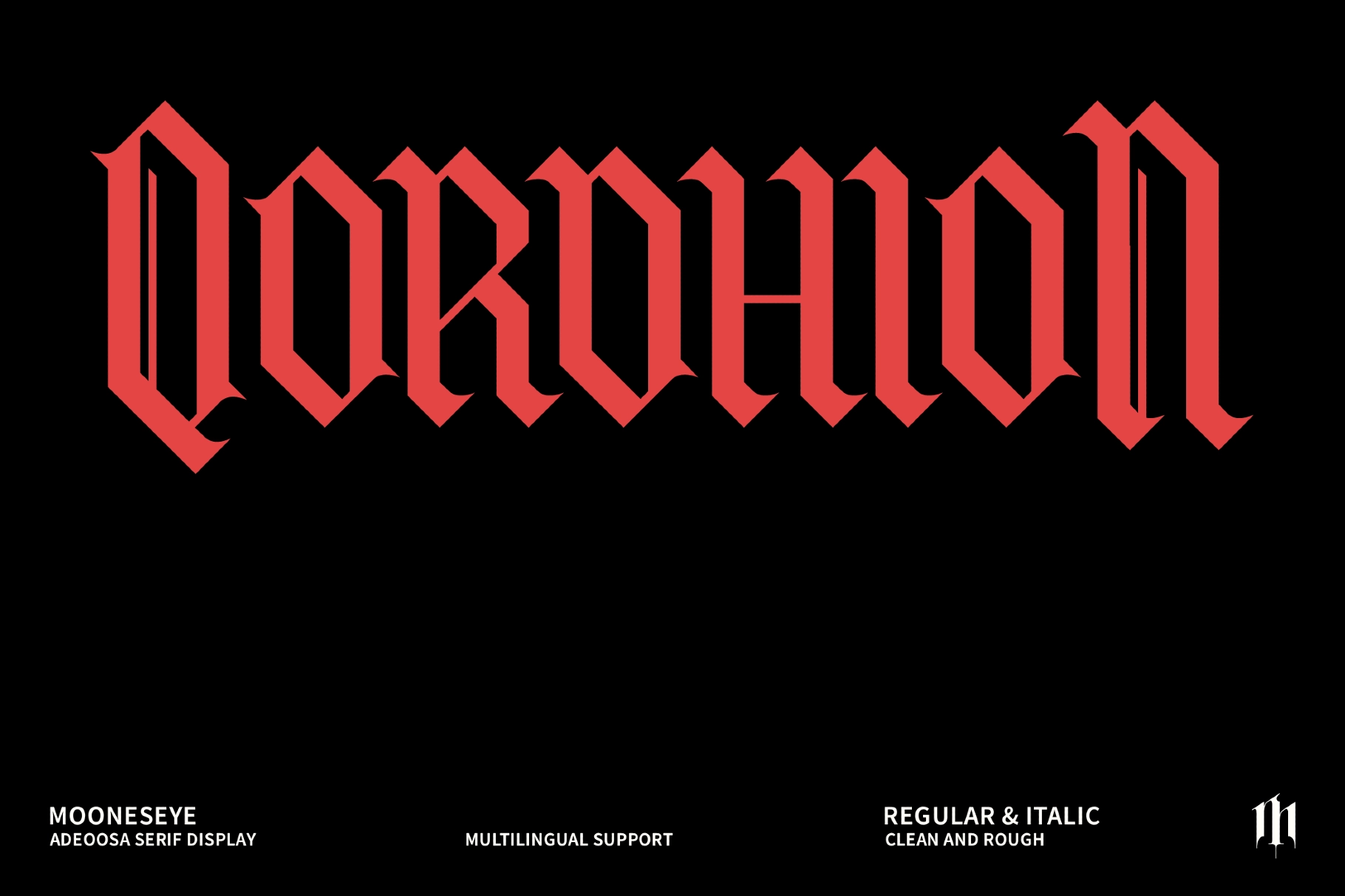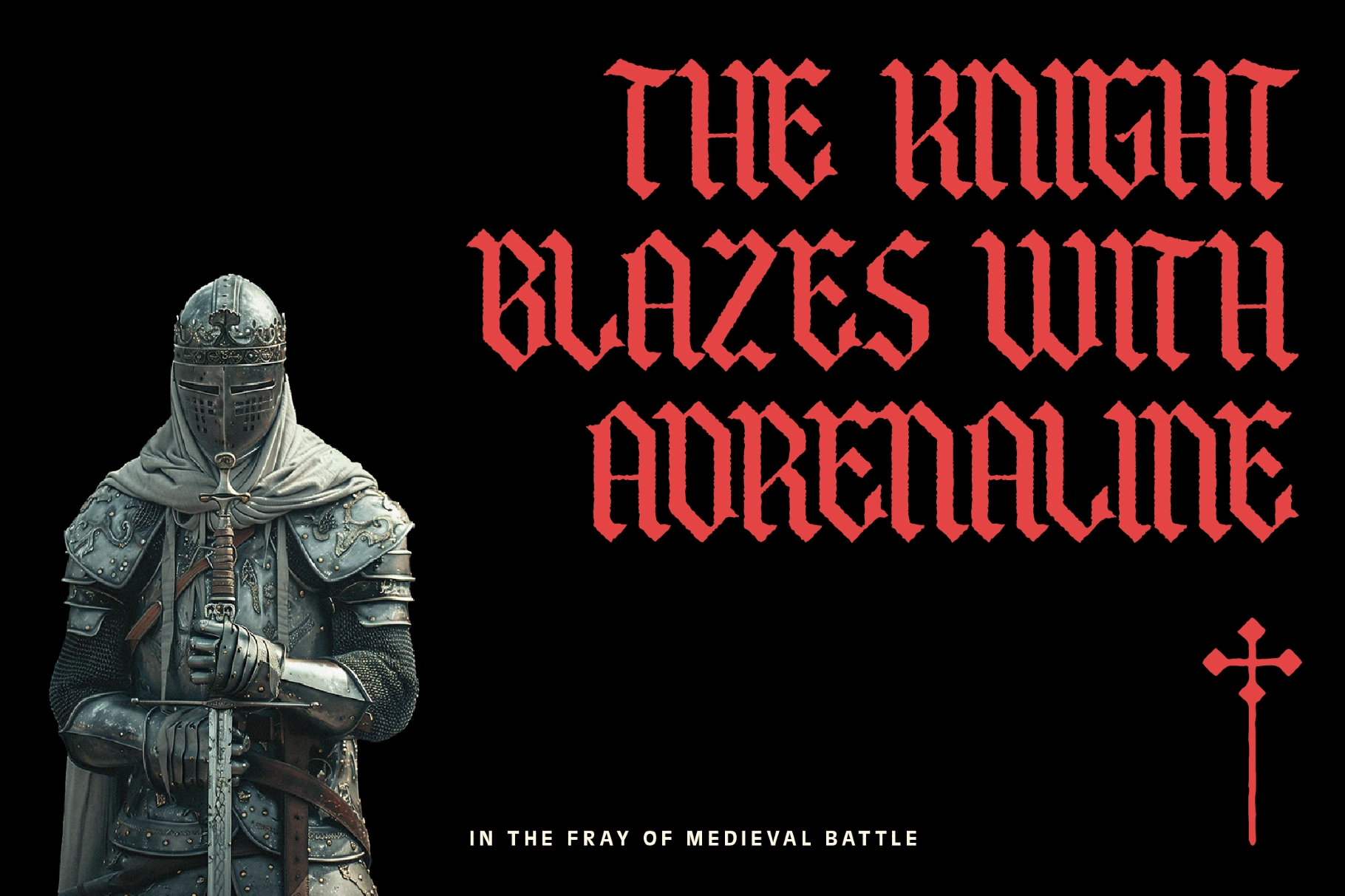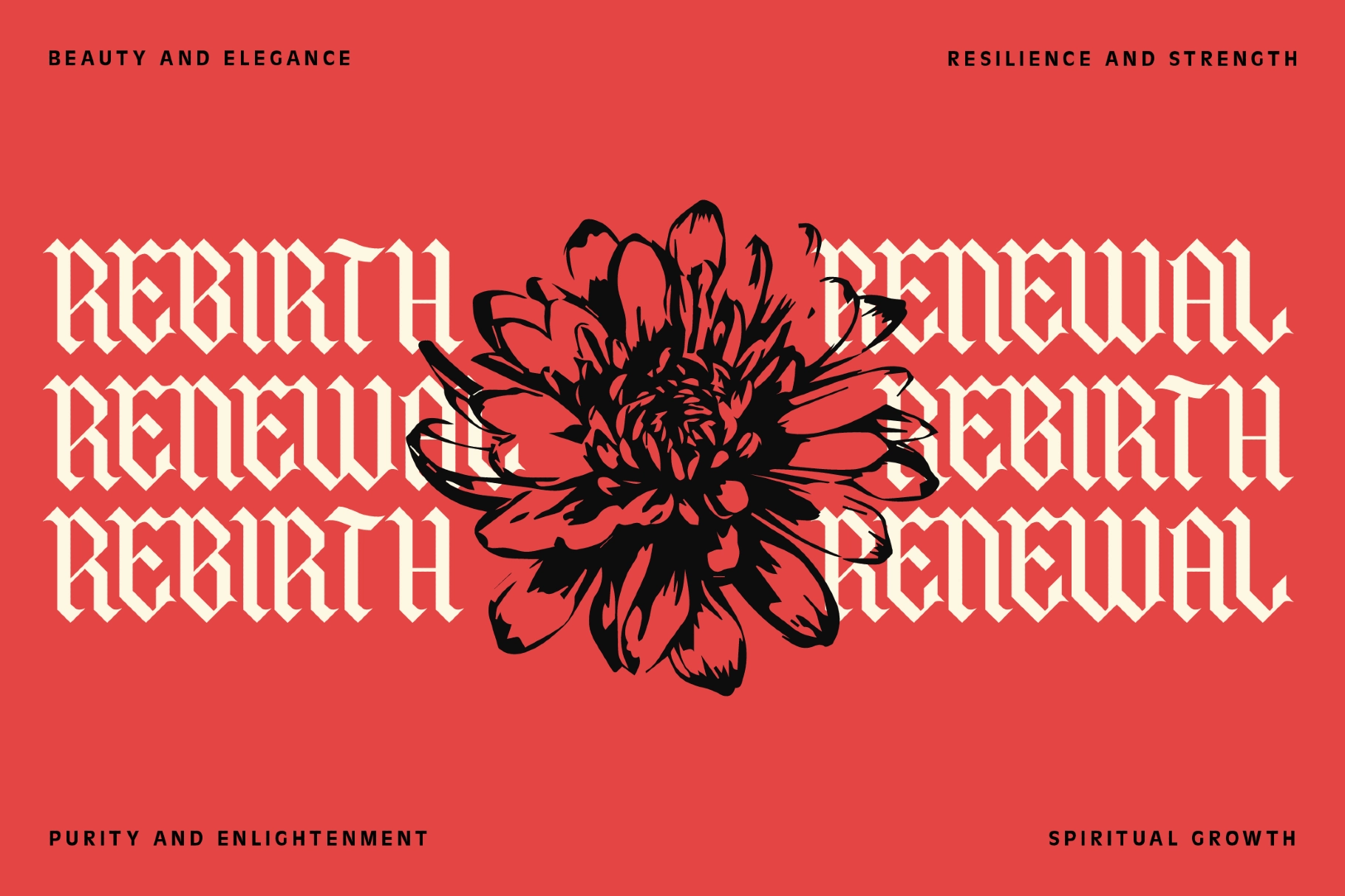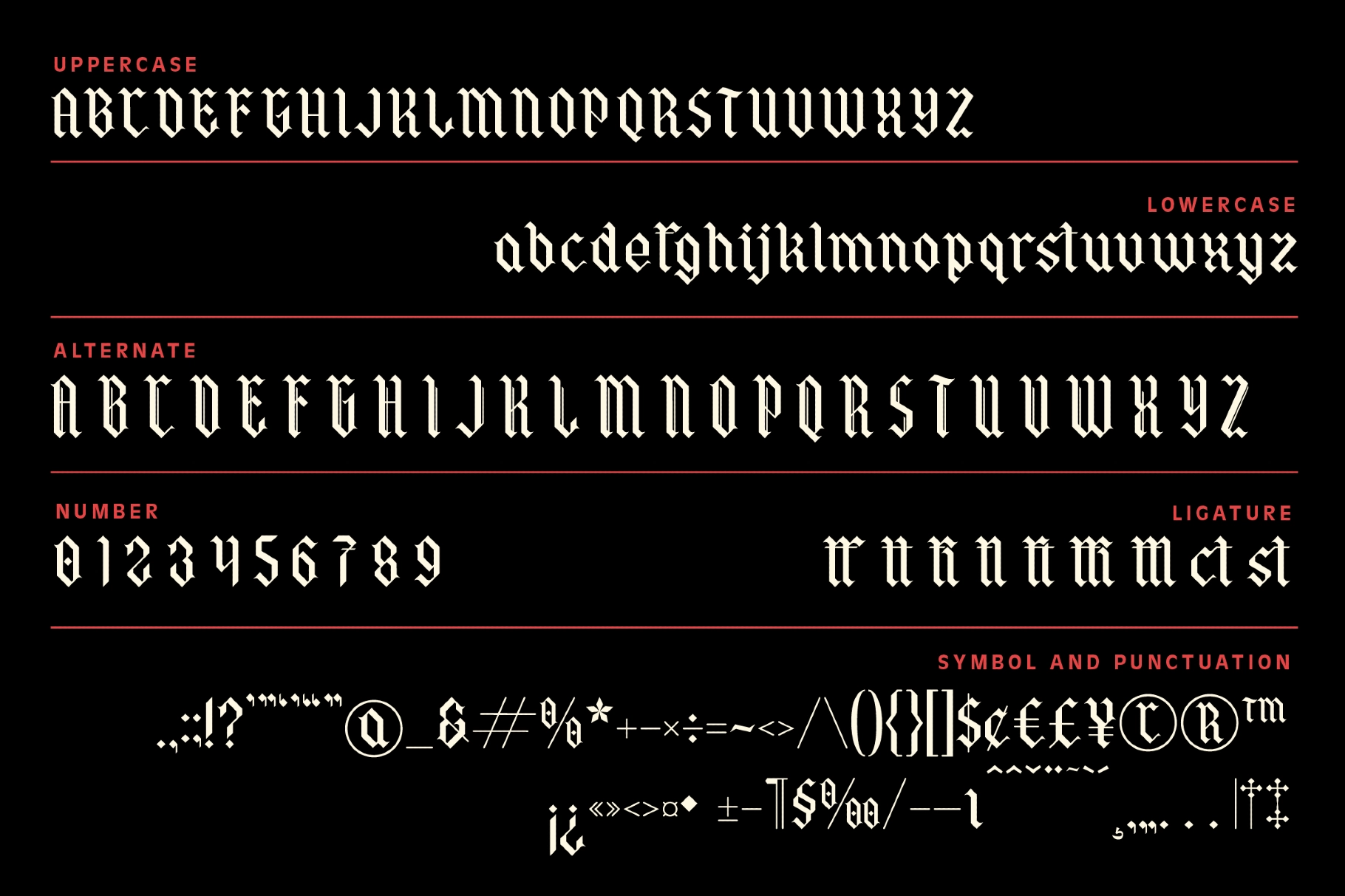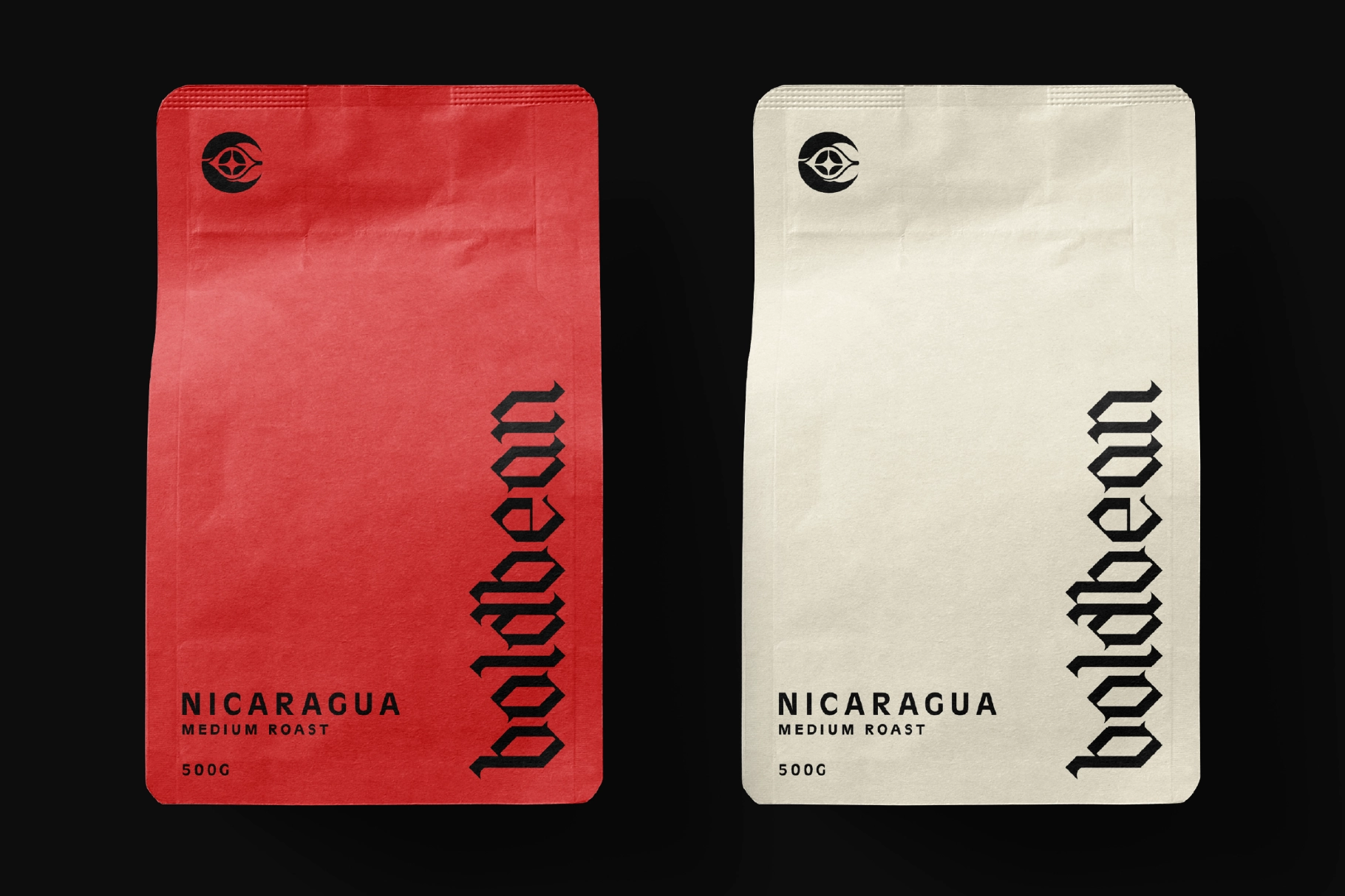
Qordhion - Blackletter Display Font
This blackletter display font has a fierce gothic structure, with sharp vertical strokes, angular cuts, and ceremonial letter shapes that bring instant drama to a headline. Its dense rhythm and blade-like details are made for work that needs authority, edge, and a little “do not enter the castle after midnight” energy.
Qordhion is a strong fit for metal band logos, tattoo lettering, gaming titles, medieval posters, fantasy book covers, coffee packaging, apparel graphics, brewery labels, occult branding, album artwork, event flyers, heraldic marks, and more. The Clean and Rough options, plus Regular and Italic variants, give designers room to move between polished gothic lettering and a harsher, battle-worn look.
- 4 styles: Regular, Italic, Texture, Texture Italic
- Alternates